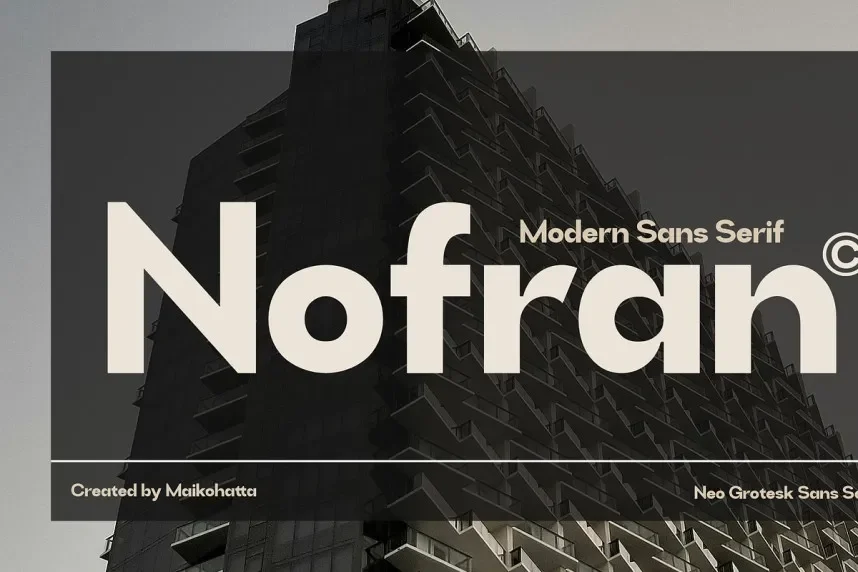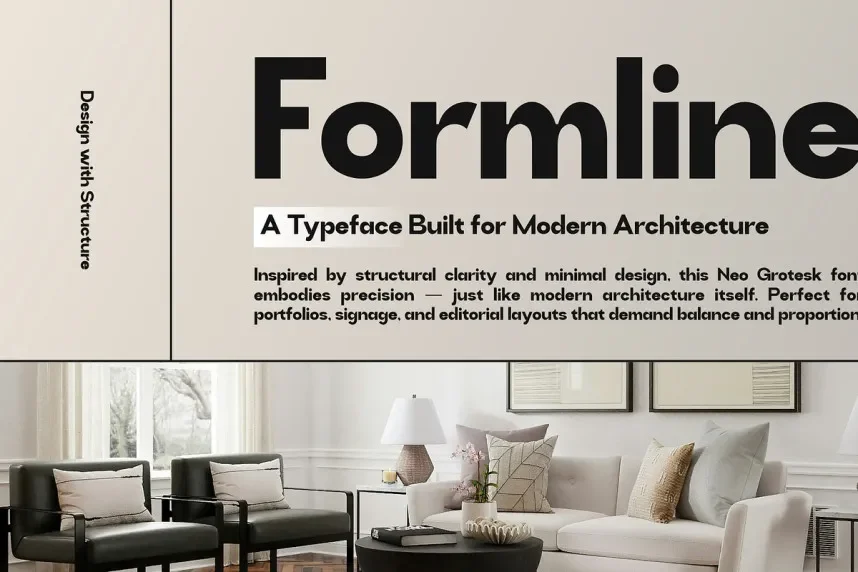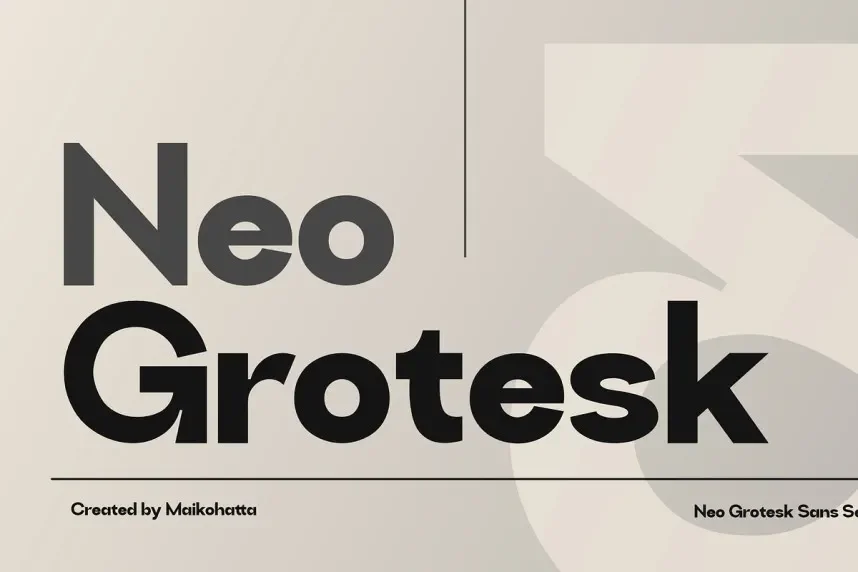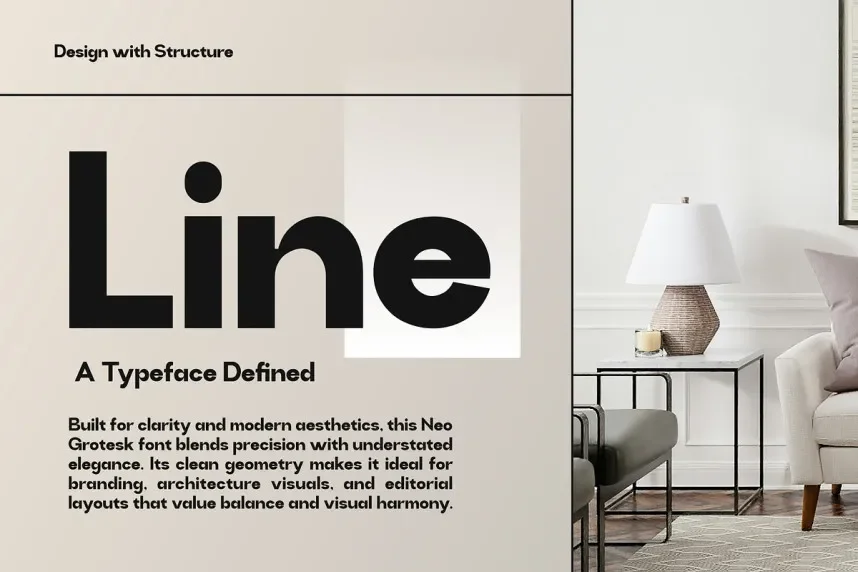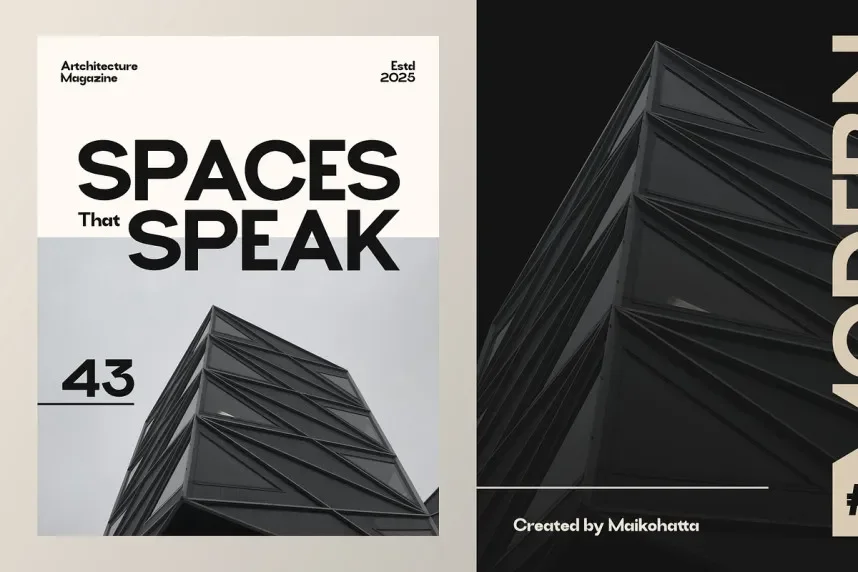
Nofran Font addresses a common branding problem: keeping text clean and readable across logos, websites, and printed materials without visual noise. Designers often need a sans-serif typeface that maintains consistency across screens and print while staying neutral and structured.
Nofran Font is a modern sans-serif typeface built with balanced proportions and even stroke weight. The letterforms use clean curves, open counters, and stable spacing, which improves legibility at small and medium sizes. Stroke contrast is minimal, supporting clarity in UI design and structured layouts.